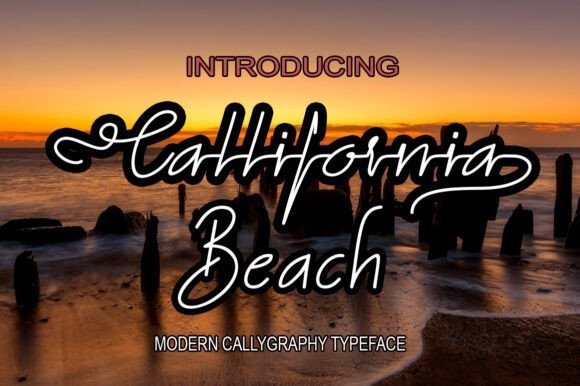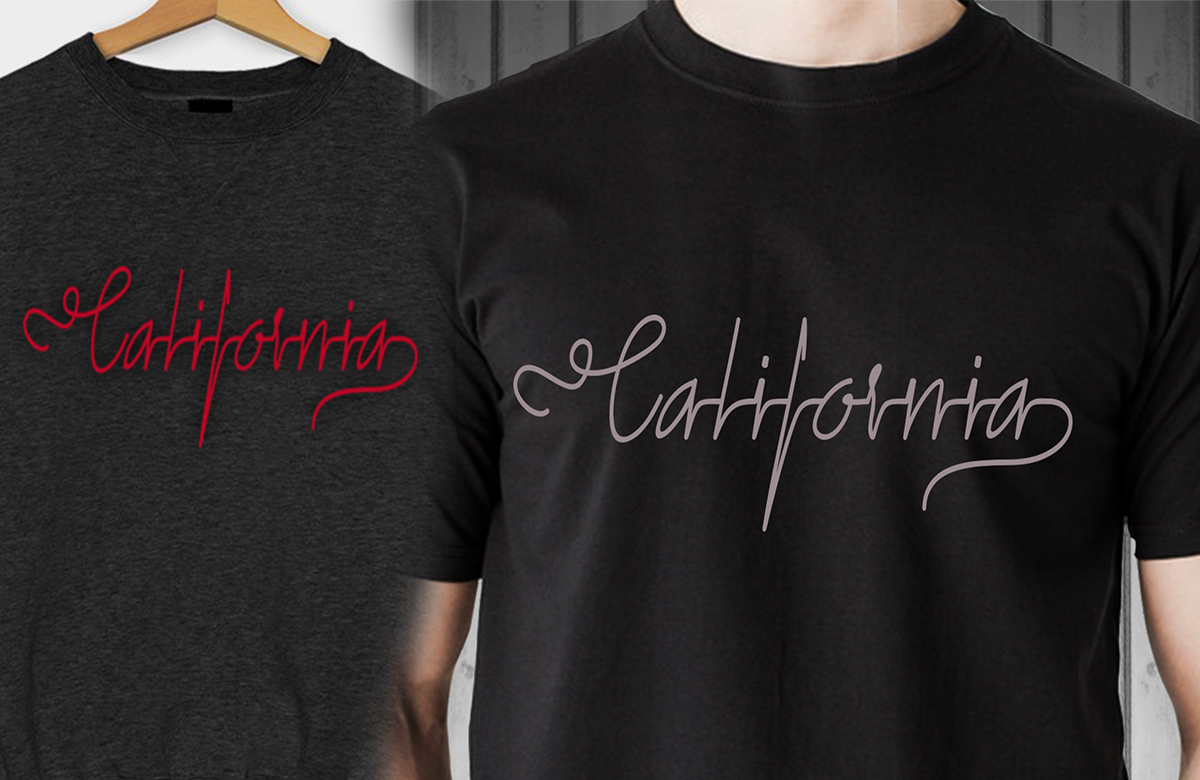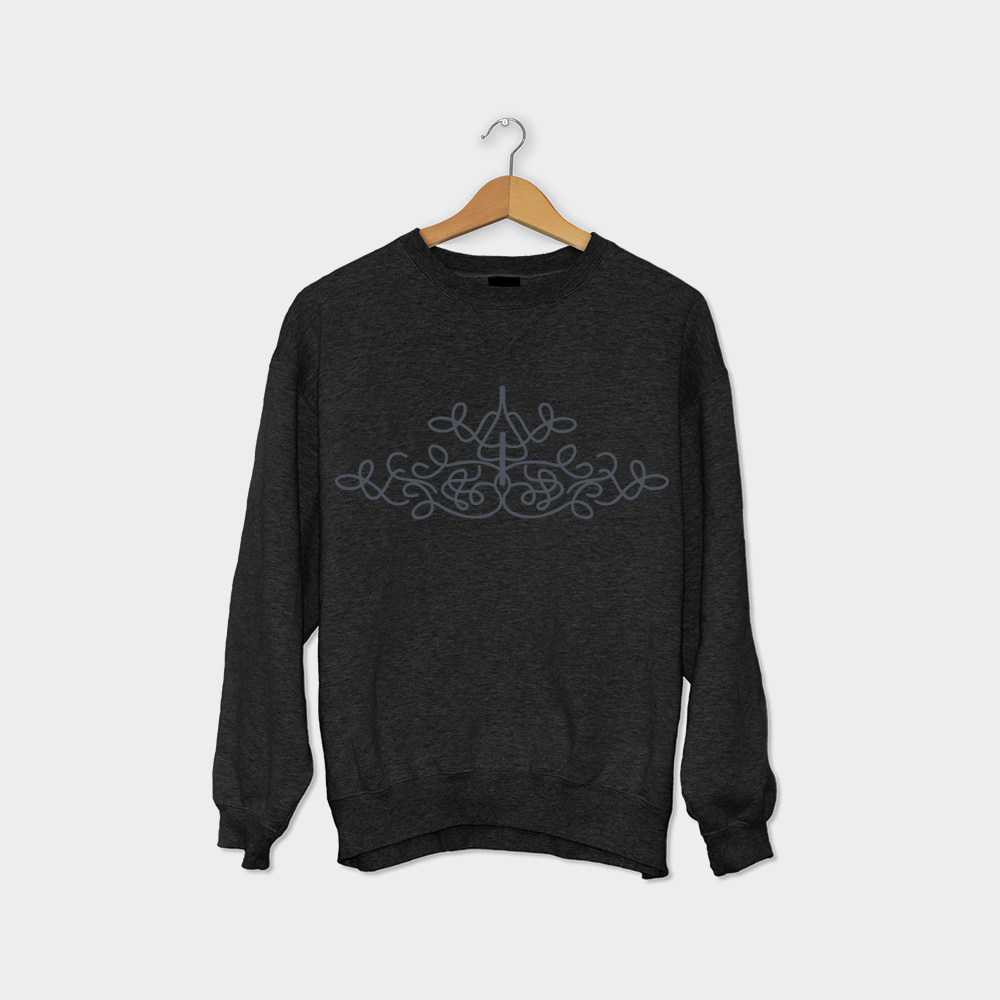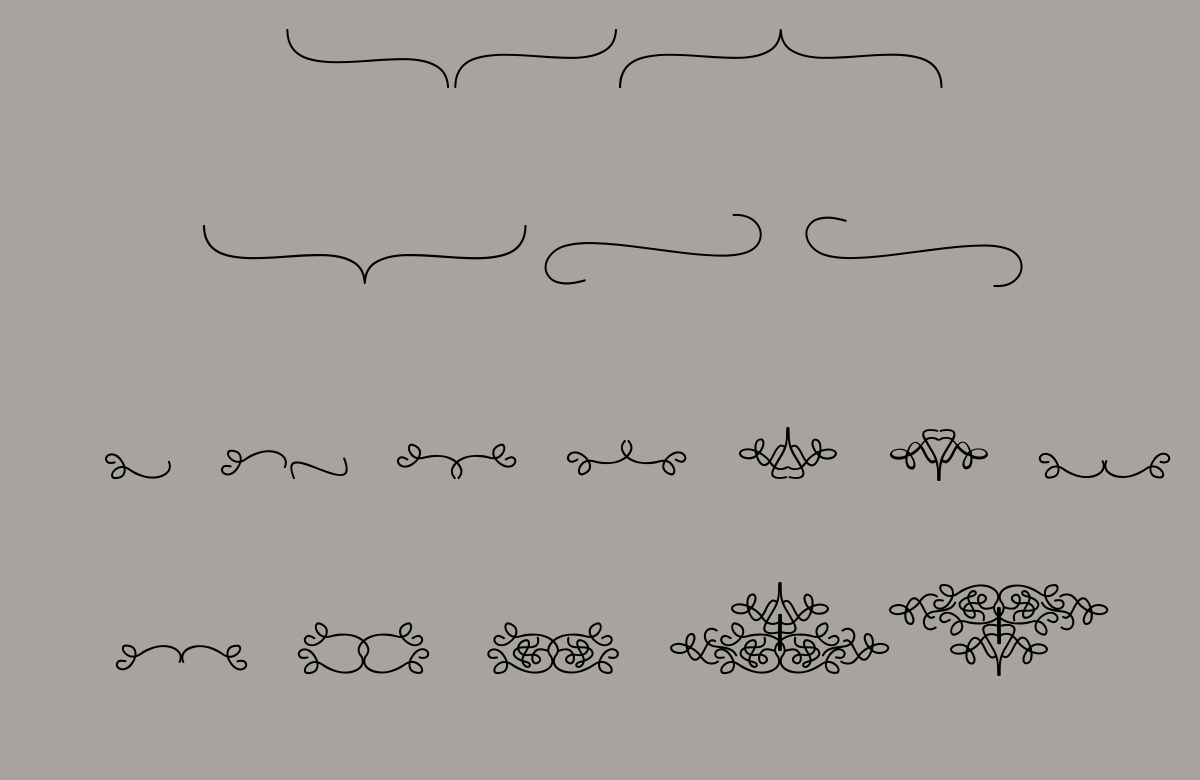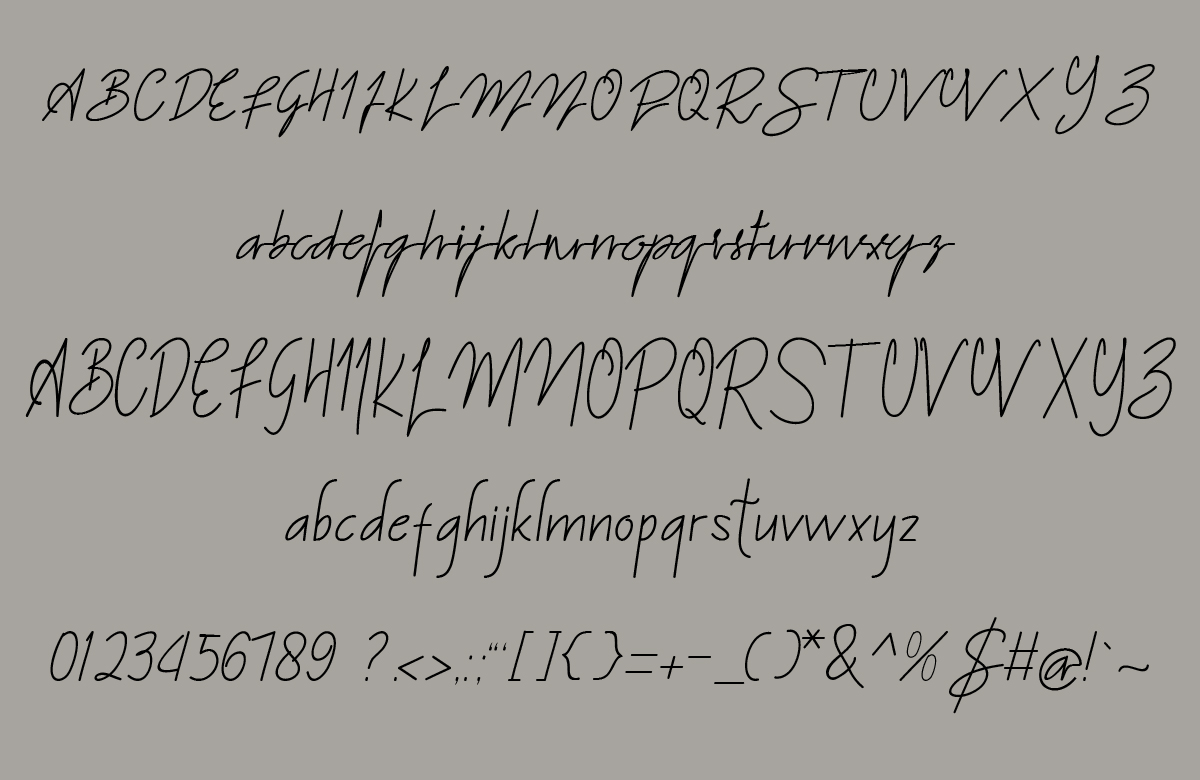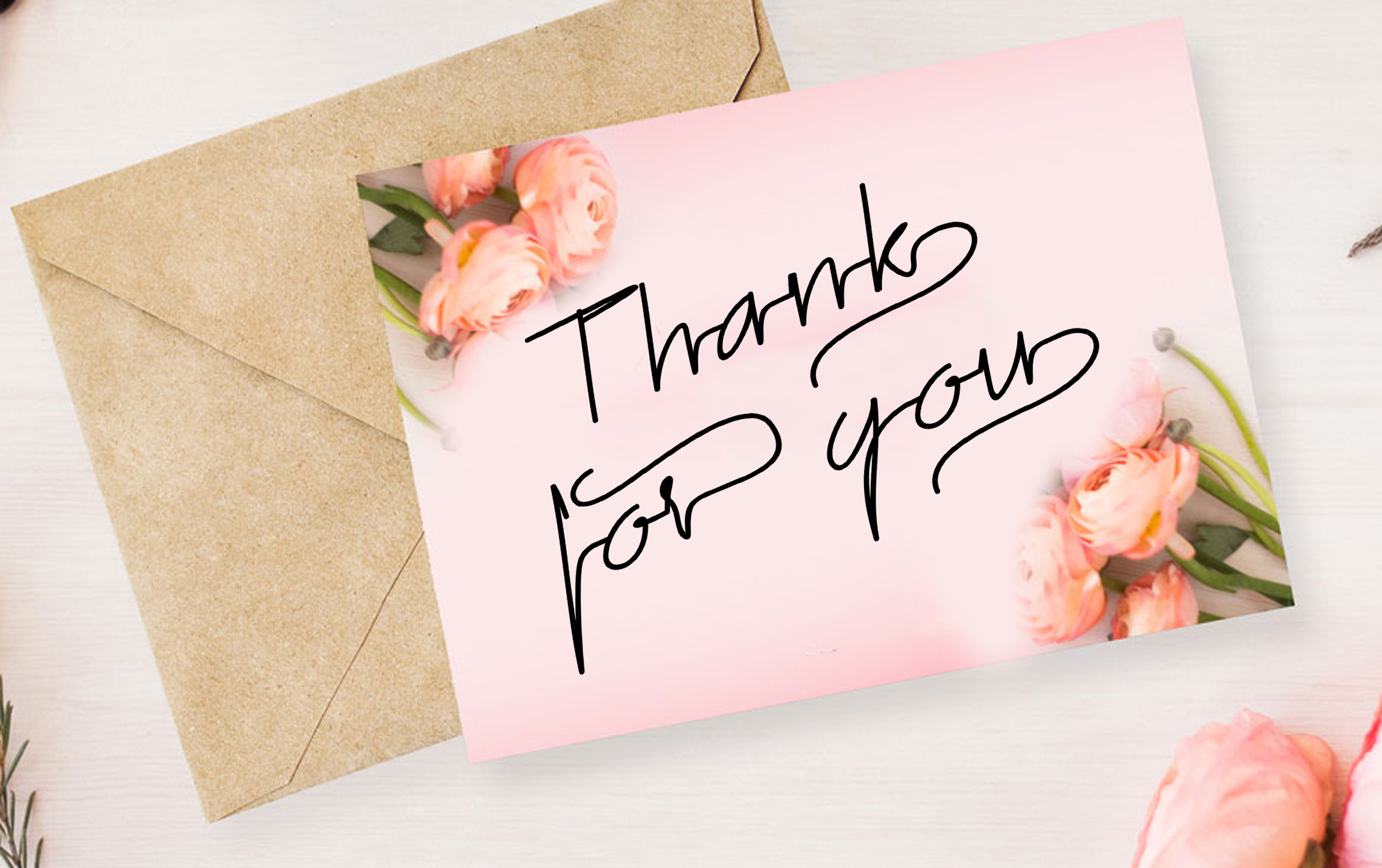
Unleashing the Cool Factor: California Beach Duo Font
Have you ever been walking along the sun-kissed shores of California, feeling the ocean breeze in your hair and the sound of the waves crashing against the shore? For me, that moment sparked the idea to explore a font that embodies the carefree spirit of the Golden State. And that’s when I stumbled upon the California Beach Duo Font – a fresh and modern pairing that’s perfect for making a statement.
This stylish font is designed for displays and branding purposes, with decorative characters and a dancing baseline that will make your designs pop. As a designer, you know how important it is to have the right tools at your disposal. The California Beach Duo Font is a valuable addition to any designer’s toolkit, offering a unique and eye-catching way to convey your message.
California Beach Duo Font Key Features
- Font Family: California Beach Duo is a unique, hand-drawn font duo consisting of two complementary fonts, perfect for creating a relaxed, beachy vibe.
- Unique Characteristics: Each font in the duo has its own distinct personality, with California Beach Duo 1 featuring a more playful, casual feel and California Beach Duo 2 offering a slightly more elegant, sophisticated look.
- Character Count: The font includes over 500 characters, including uppercase and lowercase letters, numbers, and special symbols, providing a comprehensive character set for designers.
California Beach Duo Font Review
When I first saw the California Beach Duo font, I was immediately drawn to its unique and laid-back vibe ✨. The font’s combination of a relaxed script and a bold sans-serif companion creates a perfect balance between casual and sophisticated. The beach-inspired design elements, such as the subtle wave-like patterns, add a fun and playful touch to any project.
One of the things I love about this font is its versatility ✨. It’s perfect for a variety of designs, from beach-themed posters to wedding invitations. The font also comes in multiple weights and styles, making it easy to customize and match with other design elements.
- ⚠️ The font may not be suitable for small text sizes, as the script can become difficult to read.
- ⚠️ Some users may find the font’s beachy vibe too casual or unprofessional for certain projects.
Overall, I think the California Beach Duo font is a great addition to any designer’s toolkit ✨. While it may have some limitations, its unique design and versatility make it a great choice for a wide range of projects. With a little creativity and experimentation, this font can help you create truly unique and eye-catching designs.
The California Beach Duo font is ideal for designing beach-themed materials, such as:
Brochures and flyers for beach resorts or vacation rentals
Posters and signs for beach events or festivals
Marketing materials for beach-inspired businesses, such as surf schools or beachwear stores